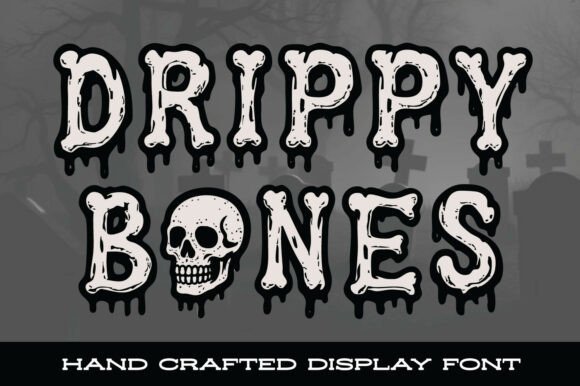
Drippy Bones Font: The Ultimate Horror Display Font for Spooky Designs
The world of typography is vast and diverse, with fonts ranging from elegant and sophisticated to bold and attention-grabbing. For those looking to add a touch of horror and eeriness to their designs, the Drippy Bones Font is an excellent choice. This gruesomely fun horror display font is crafted from skeletal forms that ooze with black, dripping liquid, making it perfect for Halloween designs, horror posters, haunted attractions, and any project that calls for a touch of bone-chilling character.
What is Drippy Bones Font?
Drippy Bones is a unique and terrifying font that appears to be sculpted from real bone. Each letter is carefully crafted to resemble skeletal forms, complete with porous textures, cracks, and subtle marrow details. The font’s design is bold, hand-drawn, and unmistakably undead, making it an excellent choice for those looking to add a touch of horror to their designs.
Key Features of Drippy Bones Font
- Gruesomely fun horror display font: Drippy Bones is designed to grab attention and evoke a sense of eeriness and horror.
- Crafted from skeletal forms: Each letter is carefully crafted to resemble skeletal forms, complete with porous textures, cracks, and subtle marrow details.
- Oozing with black, dripping liquid: The font’s design features black, dripping liquid that appears to be melting from the skeletal forms.
- Perfect blend of creepy and cartoonish: Drippy Bones captures the perfect blend of creepy and cartoonish, making it ideal for Halloween designs, horror posters, and haunted attractions.
- Bold, hand-drawn, and unmistakably undead: The font’s design is bold, hand-drawn, and unmistakably undead, making it an excellent choice for those looking to add a touch of horror to their designs.
Usage Ideas for Drippy Bones Font
Drippy Bones is a versatile font that can be used for a variety of design projects. Here are some usage ideas to get you started:
- Halloween designs: Drippy Bones is perfect for Halloween designs, including party invitations, trick-or-treat bags, and Halloween-themed posters.
- Horror posters: The font’s horror theme makes it an excellent choice for horror movie posters, haunted house advertisements, and other spooky designs.
- Haunted attractions: Drippy Bones is ideal for haunted attractions, including haunted houses, haunted hayrides, and other spooky events.
- Graphic design projects: The font’s unique design makes it an excellent choice for graphic design projects, including logos, brochures, and business cards.
Benefits of Using Drippy Bones Font
There are several benefits to using Drippy Bones Font for your design projects. Here are a few:
- Unique design: Drippy Bones features a unique design that is sure to grab attention and evoke a sense of eeriness and horror.
- Versatile: The font is versatile and can be used for a variety of design projects, including Halloween designs, horror posters, and haunted attractions.
- High-quality: The font is high-quality and features intricate details, including porous textures, cracks, and subtle marrow details.
Tips and Tricks for Using Drippy Bones Font
Here are some tips and tricks for using Drippy Bones Font:
- Use it sparingly: Drippy Bones is a bold font, so use it sparingly to avoid overwhelming your design.
- Pair it with other fonts: The font pairs well with other fonts, including sans-serif fonts and script fonts.
- Experiment with colors: Drippy Bones looks great in a variety of colors, including black, white, and bold colors like red and orange.
- Use it for headlines: The font is perfect for headlines and titles, and can be used to add a touch of horror and eeriness to your design.
Drippy Bones Font is a unique and terrifying font that is perfect for adding a touch of horror and eeriness to your designs. With its gruesomely fun horror display font, skeletal forms, and black, dripping liquid, Drippy Bones is sure to grab attention and evoke a sense of eeriness and horror. Whether you’re designing Halloween decorations, horror posters, or haunted attraction advertisements, Drippy Bones is an excellent choice.